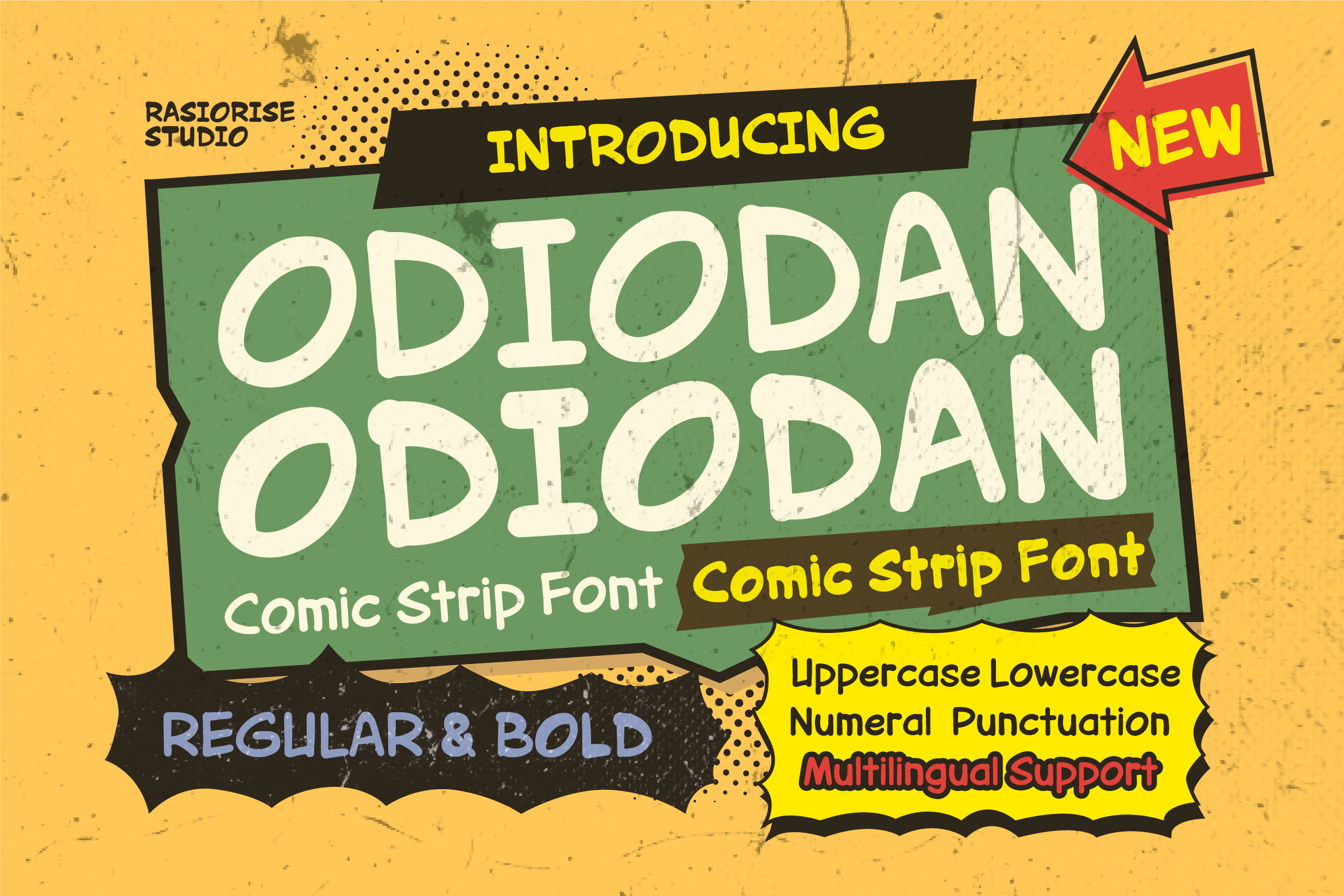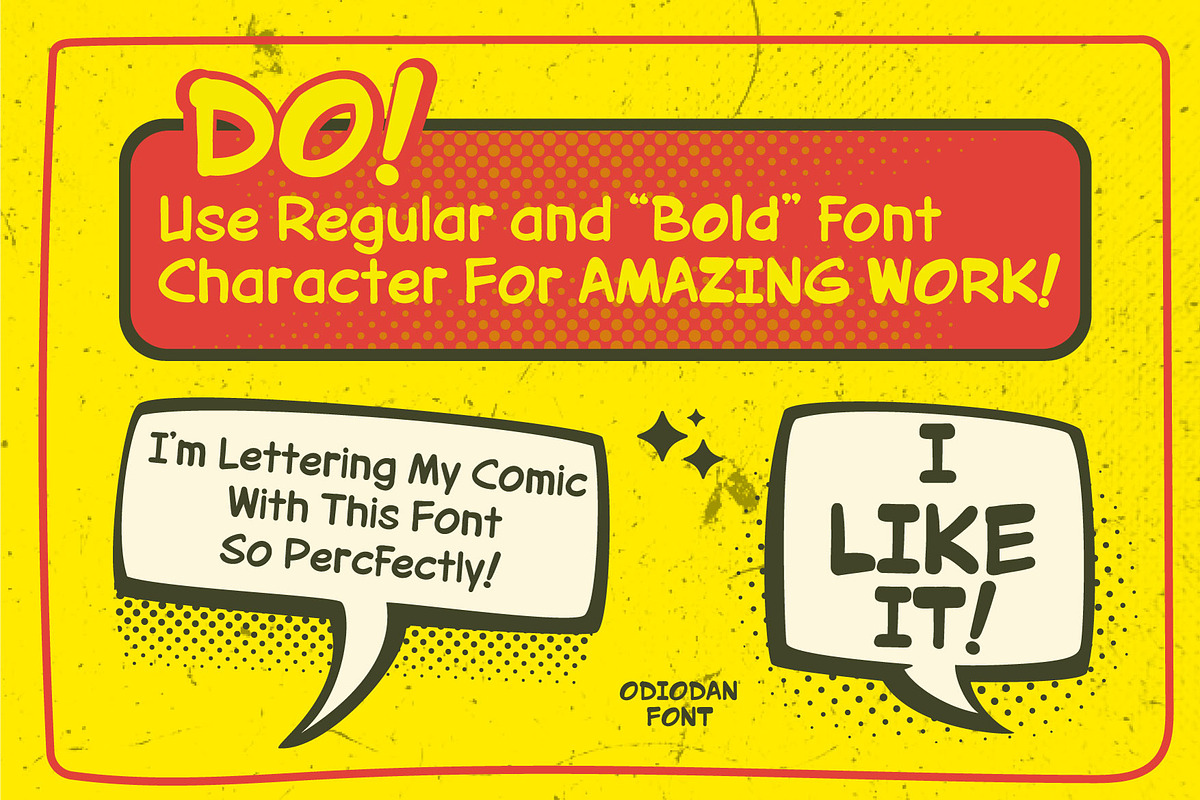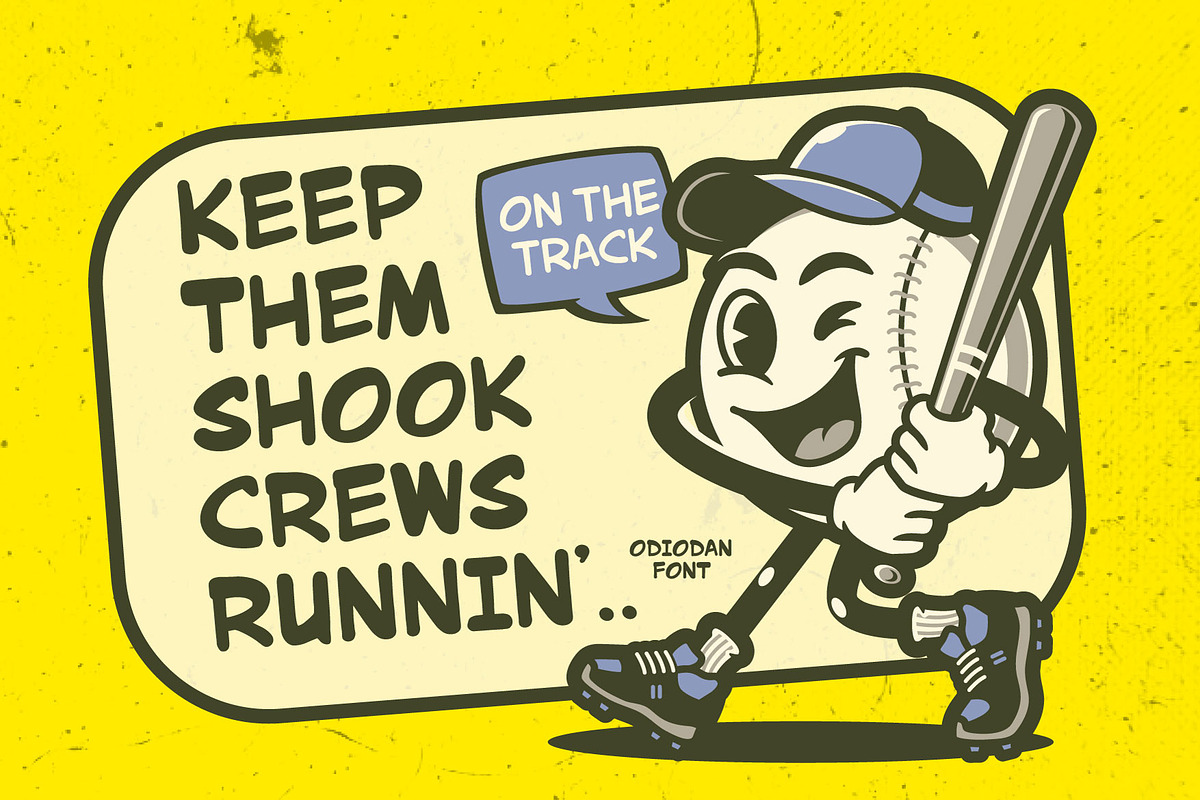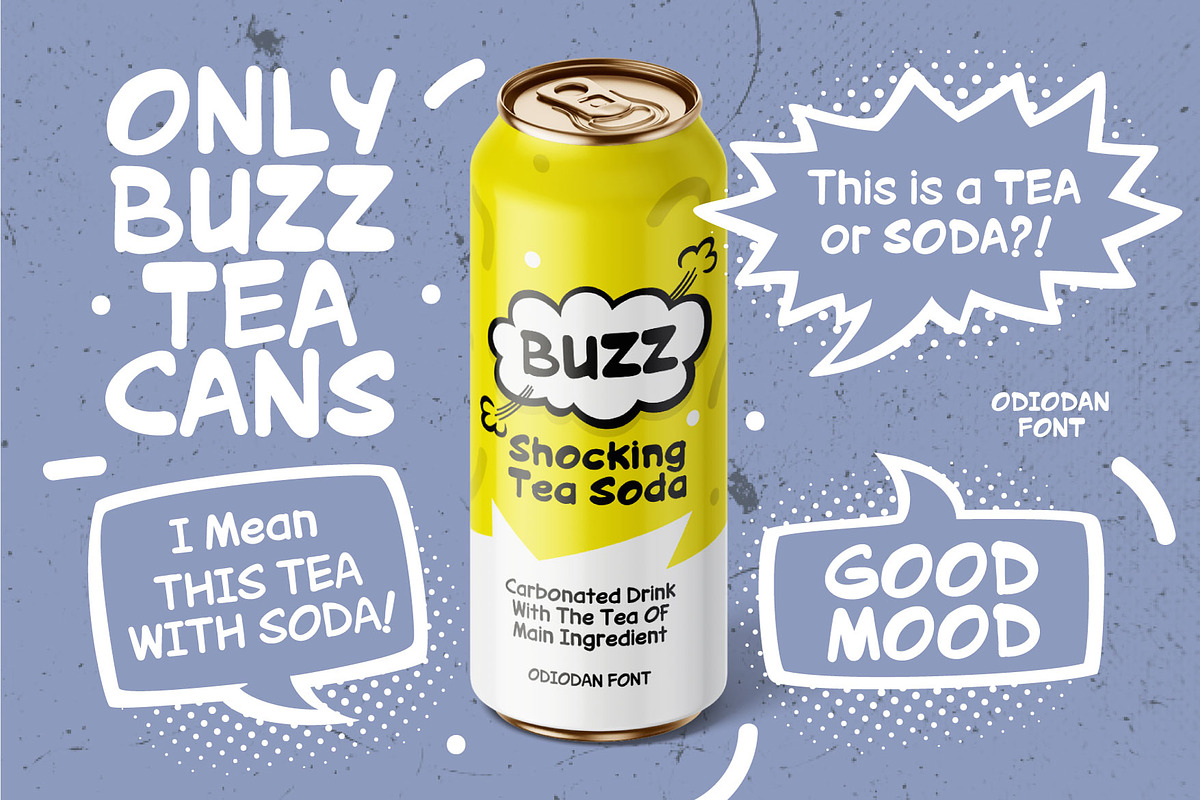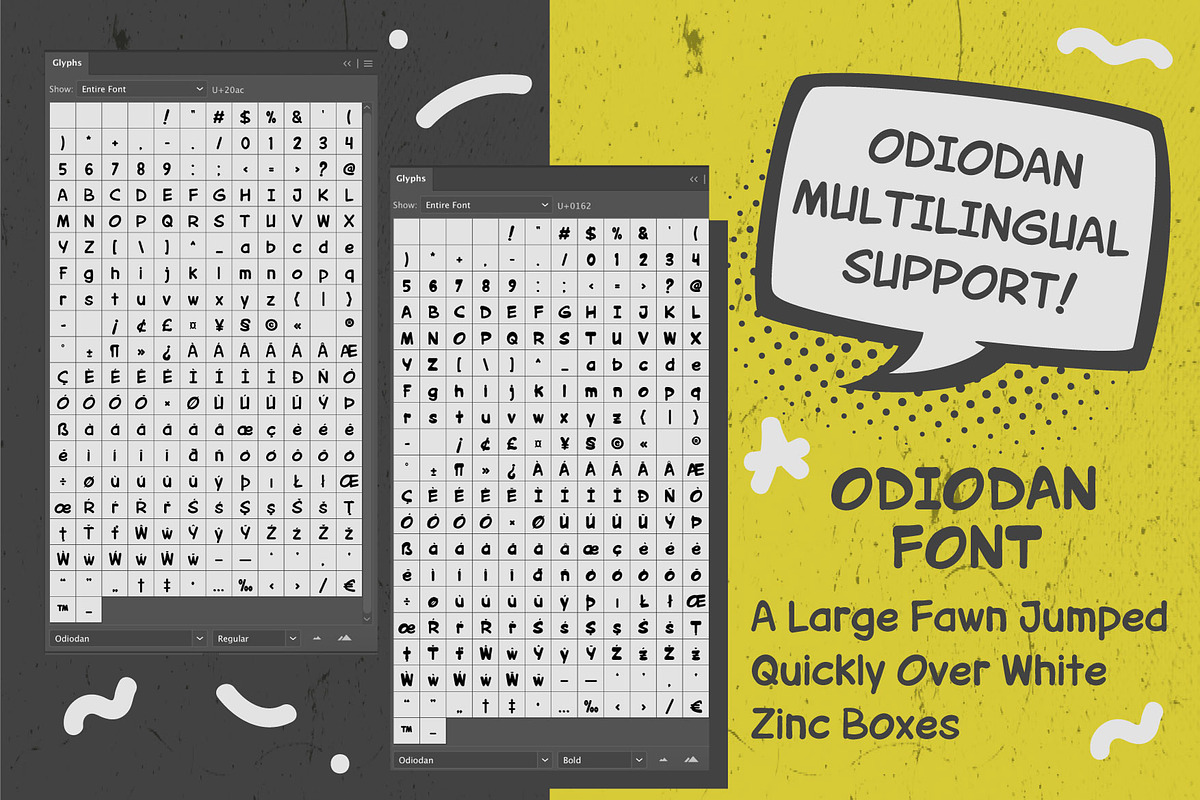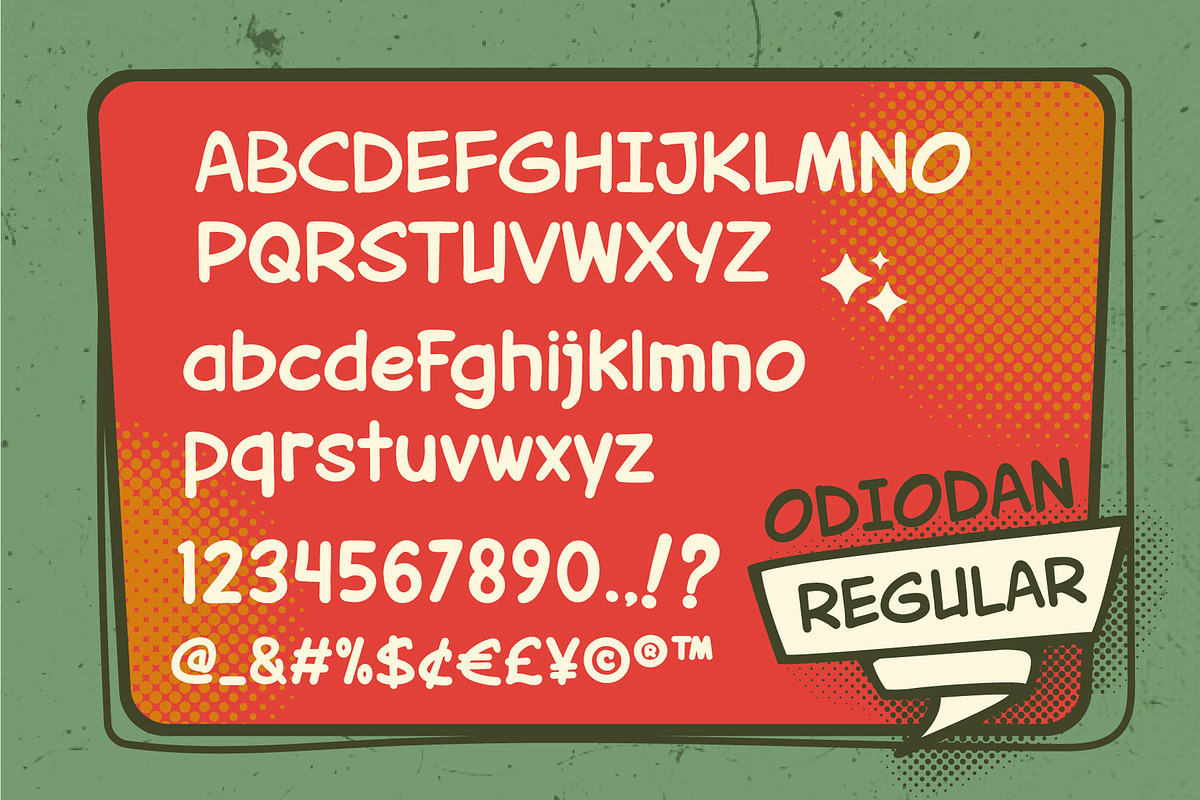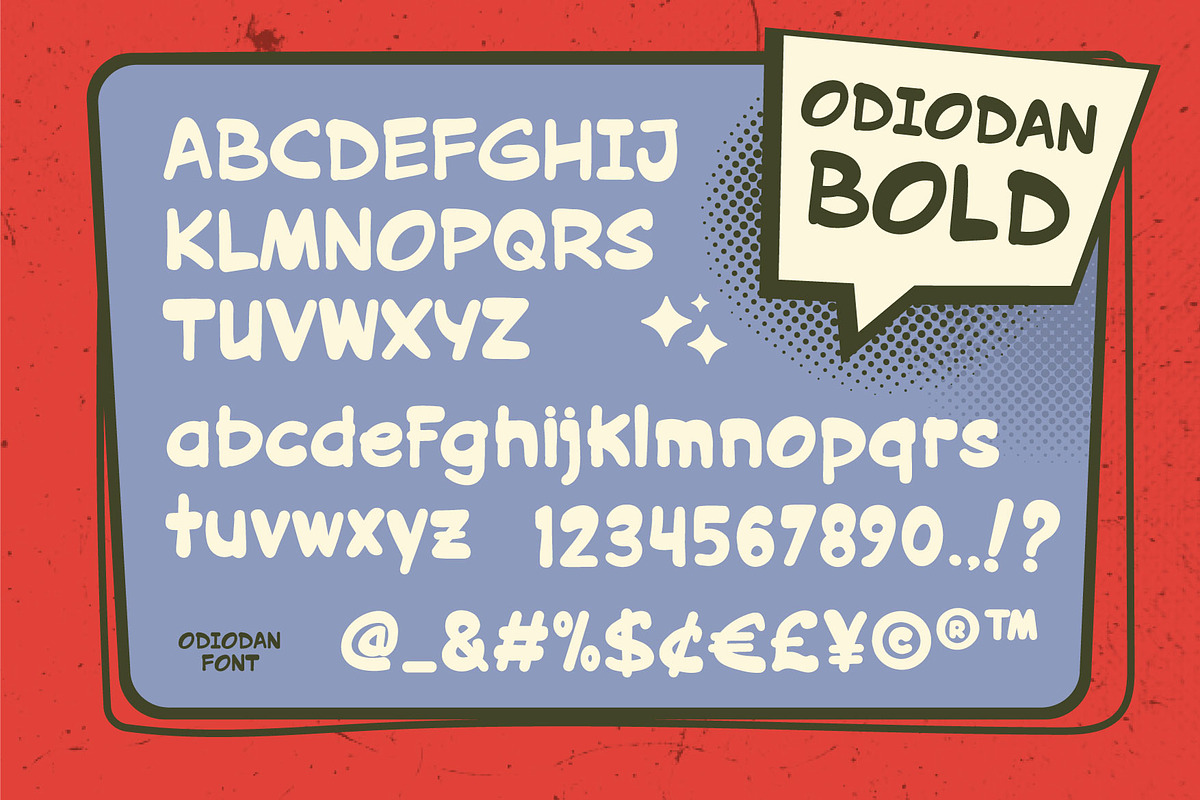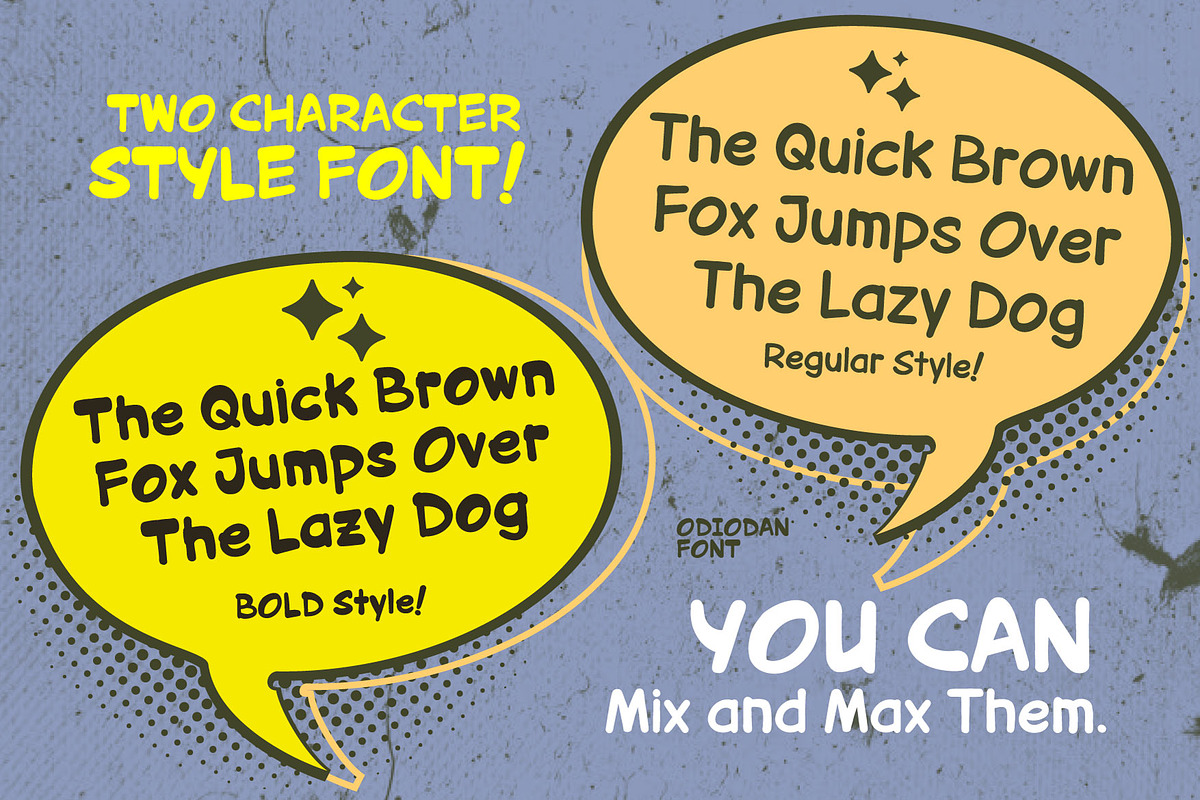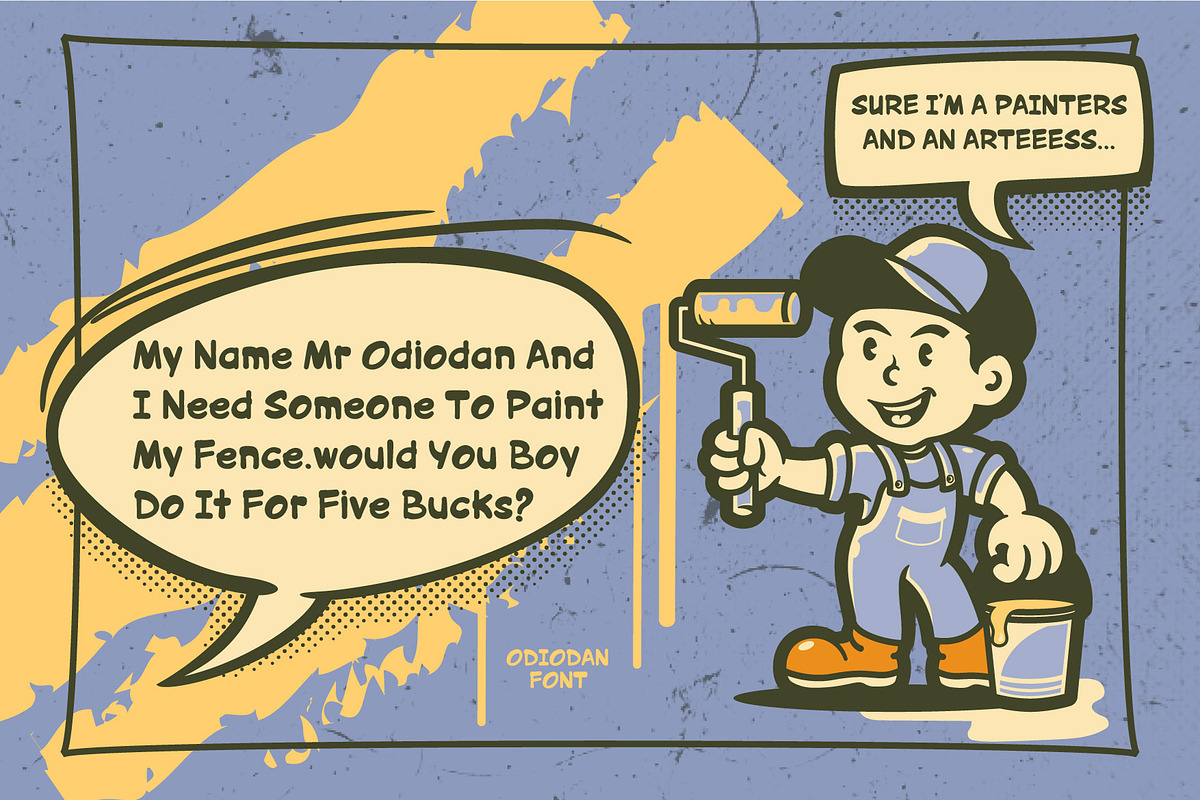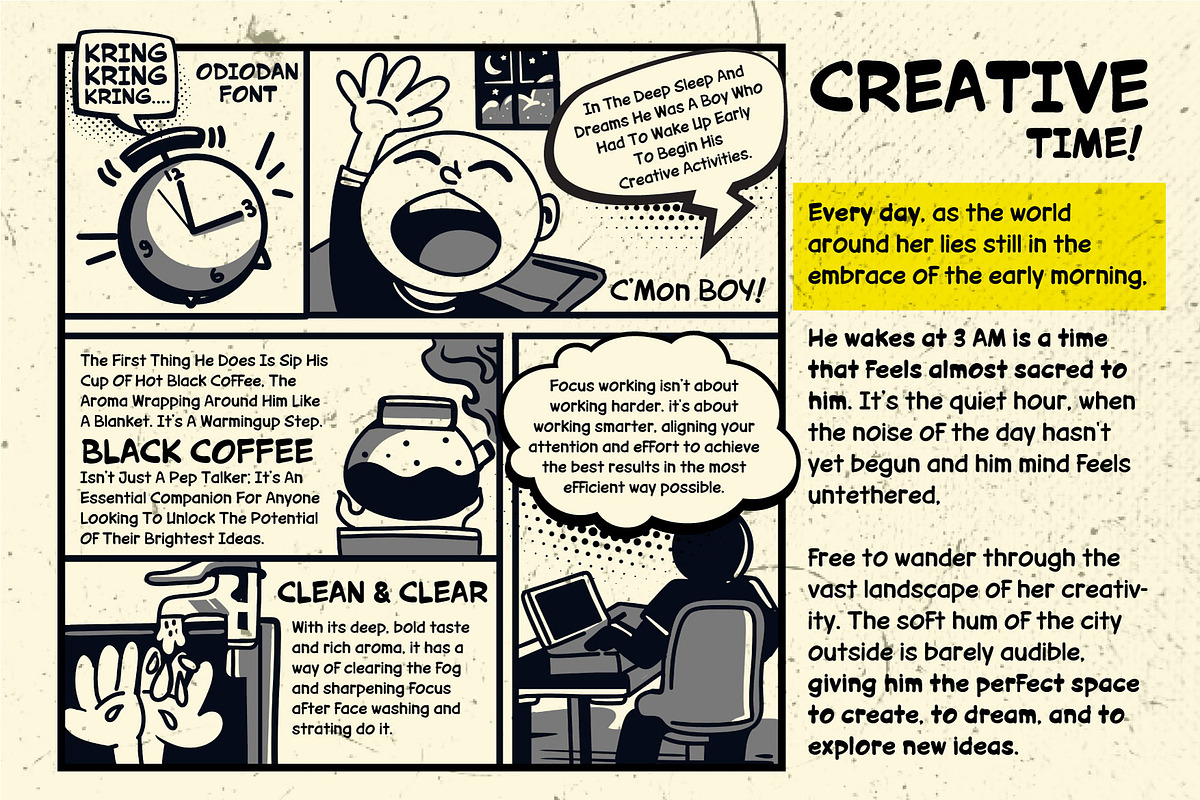
Odiodan a Comic Strip Font
Hello Everyone! Odiodan has been released for those of you who are looking for a Comic Strip Font for Comic Dialogue text. A Classic handwritten font that combines the freestyle and bold comic style. This font is inspired by a slightly extended comic book dialogue font drawn. With easy-to-read character font for your project, also you can easily create a great and stand-out typography and number fot headline or a price info. Unleash your creativity with Odiodan Font.
Odiodan Font is perfect for Comic, Poster, Price Info, Logotype, Book Cover, Gift Cards, Greeting Cards, Packaging Labels, Magazines, or any type of advertising purpose.